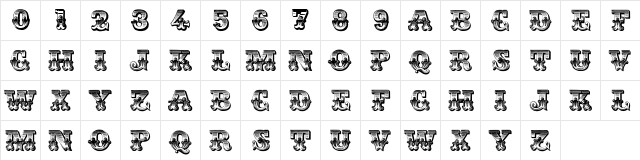
DS Romantiques Regular
Design Context for DS Romantiques Typeface
DS Romantiques wears its vintage influences proudly, with letterforms that recall mid-century signage, classic packaging, and nostalgia-driven design.
Ideal for diner signage, record shop branding, 70s/80s-themed projects, and heritage product labels.
Font Pairing: Combine DS Romantiques with a simple slab or neutral sans — period-accurate companions reinforce the vintage feel without competing for attention.
Pro Tip: Lean into DS Romantiques's period character by pairing it with aged paper textures, muted colour palettes, and vintage illustration styles.